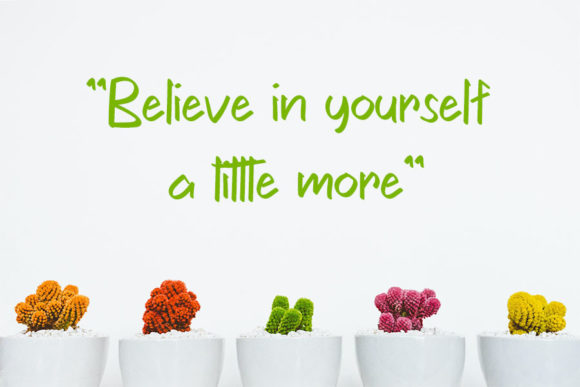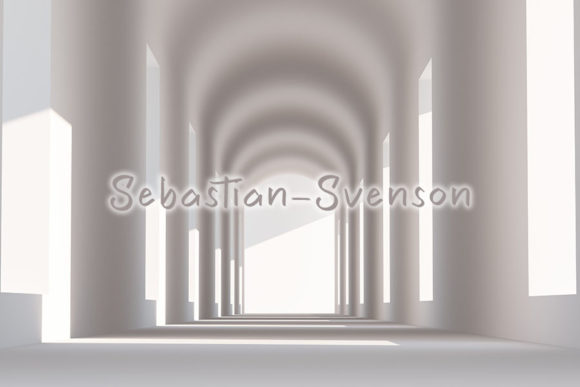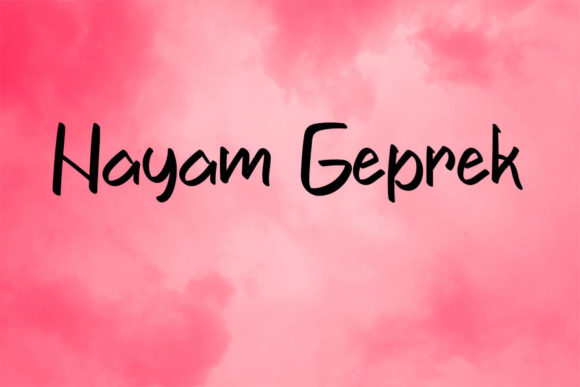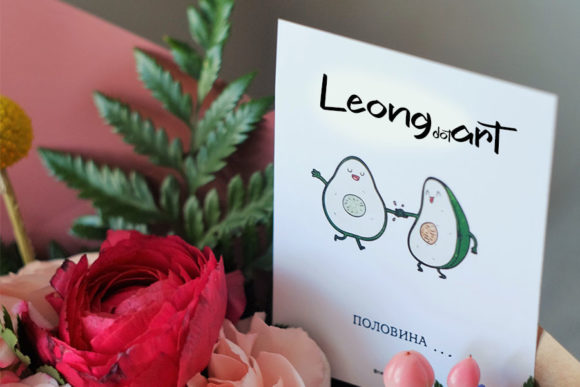
The Forsaken Font: A Hidden Gem for Creative Projects
Have you ever been in the middle of a design project, pouring your heart and soul into every detail, only to hit a roadblock when it comes to choosing the perfect font? I certainly have. Recently, I was working on a branding project for a luxury wedding planner, and I just couldn’t find a font that captured the essence of elegance and sophistication I was looking for. That was until I stumbled upon the Forsaken Font.
A Personal Love Affair with Forsaken
Forsaken is an exquisite handwritten font that has quickly become a favorite in my design toolkit. Its classy calligraphic influences are beautifully balanced with a contemporary and fresh feel, making it perfect for a wide range of creative projects. From wedding invitations and branding materials to packaging and digital content, Forsaken adds a touch of luxury and sophistication that elevates any design.
- ✨ Exquisite handwritten design with a perfect balance of elegance and modernity
- ✅ Extensive character set, including multilingual support
- ✅ OpenType features, such as ligatures, stylistic alternates, and swashes
While Forsaken is an outstanding font, there are a few minor quirks to be aware of:
- ⚠️ Some users may find the font a bit too ornate for very casual or playful projects
- 🤔 Limited availability of condensed or italic versions, which may limit its use in certain design scenarios
The Designer Inspiration Behind Forsaken
While the true story behind Forsaken remains a mystery, it’s easy to imagine that its designer was inspired by the world of luxury calligraphy and high-end fashion. With its elegant lines, flowing curves, and sophisticated feel, Forsaken is the perfect font for designers who want to add a touch of glamour to their projects.
Q: What type of projects is Forsaken best suited for?
A: Forsaken is a versatile font that can be used for a wide range of projects, including wedding invitations, branding materials, packaging, and digital content.
Q: Does Forsaken come with any OpenType features?
A: Yes, Forsaken includes a range of OpenType features, including ligatures, stylistic alternates, and swashes.
Q: Is Forsaken a difficult font to read?
A: No, Forsaken is a highly legible font that can be used for both headings and body text.